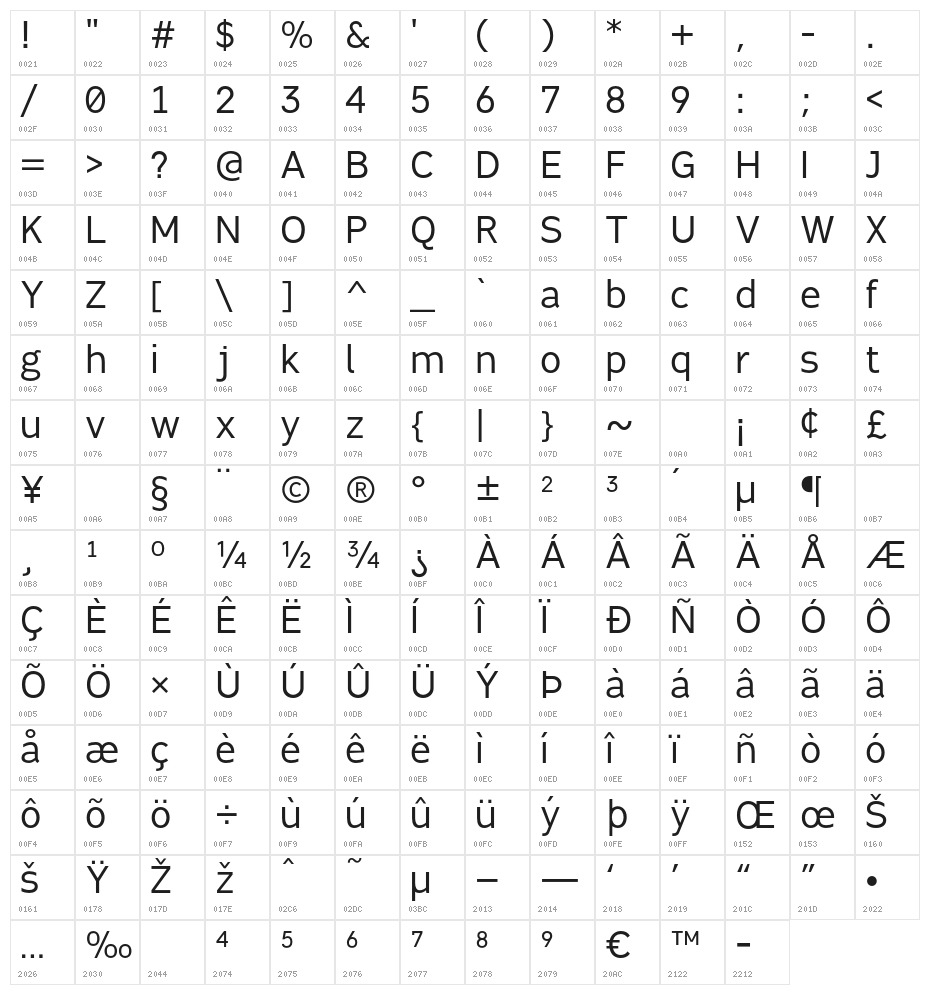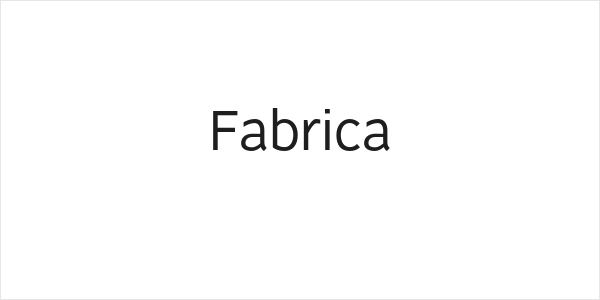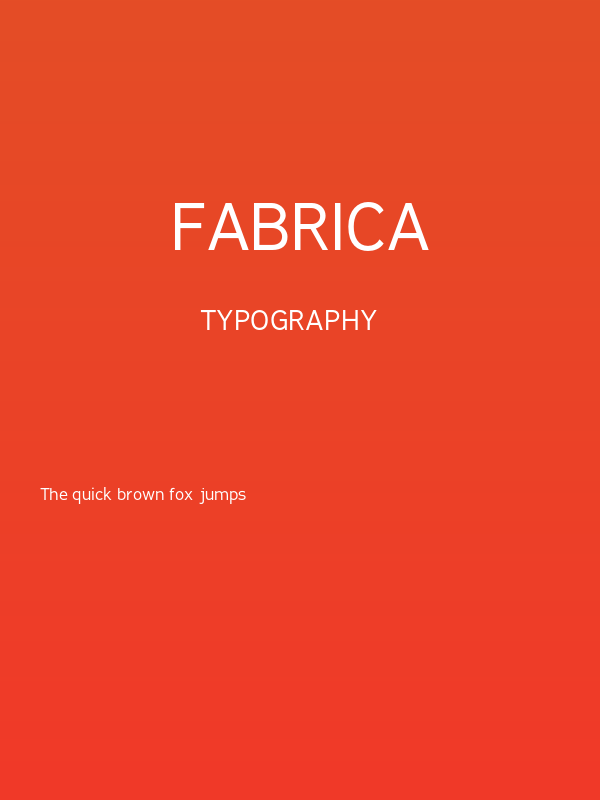
Fabrica Font
Fabrica Description
This font features a clean and modern sans-serif design, characterized by its geometric shapes and balanced proportions. The uppercase letters are bold and assertive, while the lowercase letters maintain a consistent flow with rounded edges. The numerals are clear and easy to read, making them suitable for various applications. Special characters are well-defined, adding versatility to the font. Its simplicity and clarity make it ideal for digital and print media, ensuring readability across different sizes and formats.